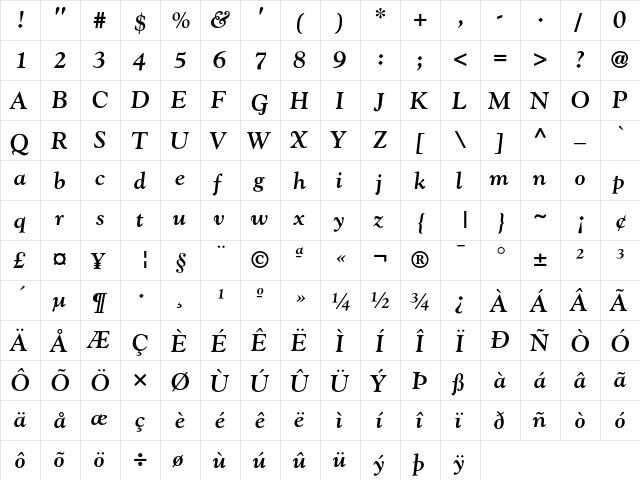
Goudy Bold Italic Font Preview
Goudy Bold Italic
Goudy Bold Italic Font Details
Design Context for Goudy Typeface
Goudy is a composed and adaptable typeface that performs quietly and consistently across a wide range of design contexts. The dynamic lean of this cut emphasises speed and emphasis in any layout. The heavy weight commands attention and anchors typographic hierarchies.
Pro Tip: Use Goudy for emphasis, pull quotes, and subheadings where its slanted energy can add rhythm to the layout.